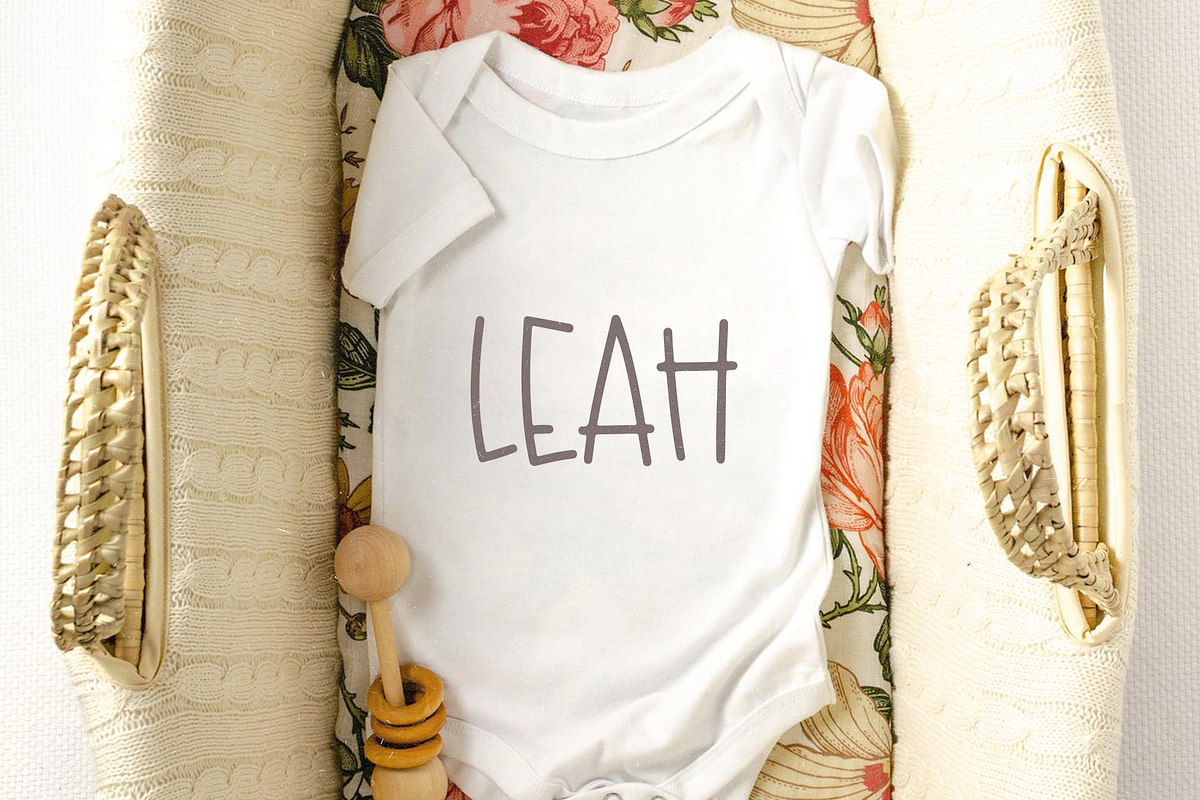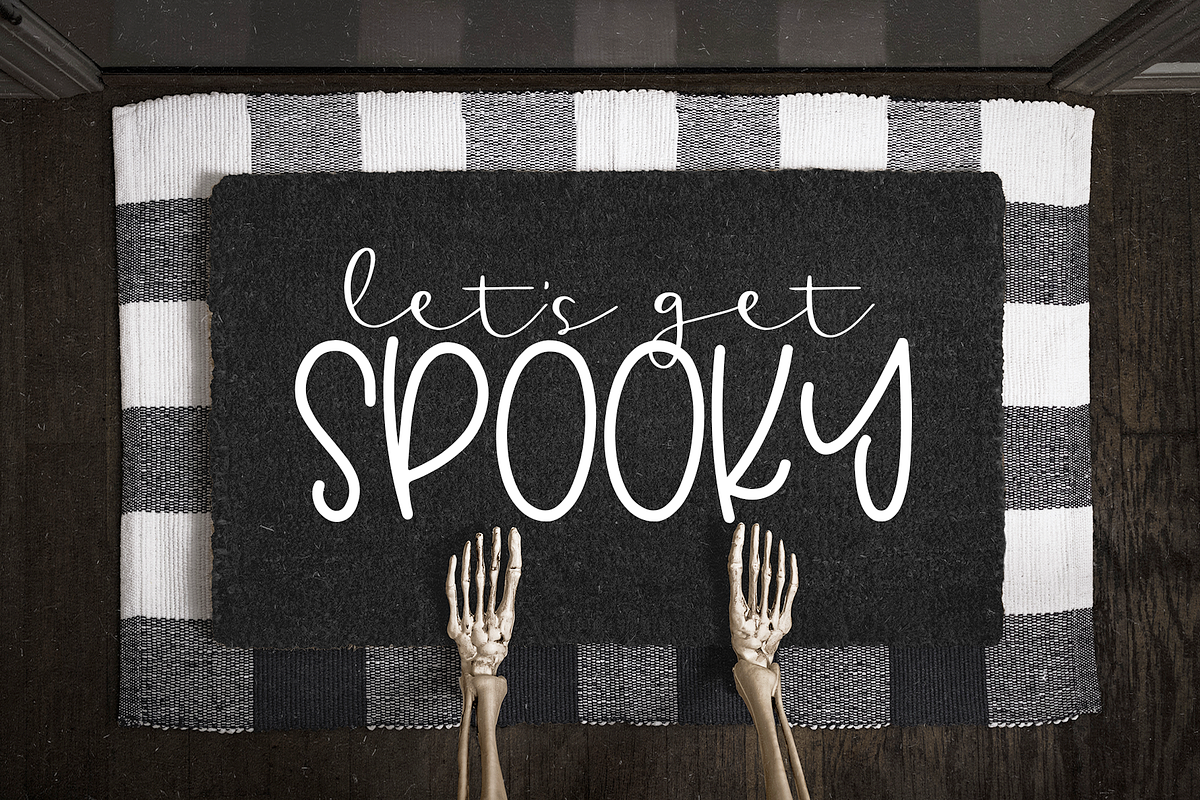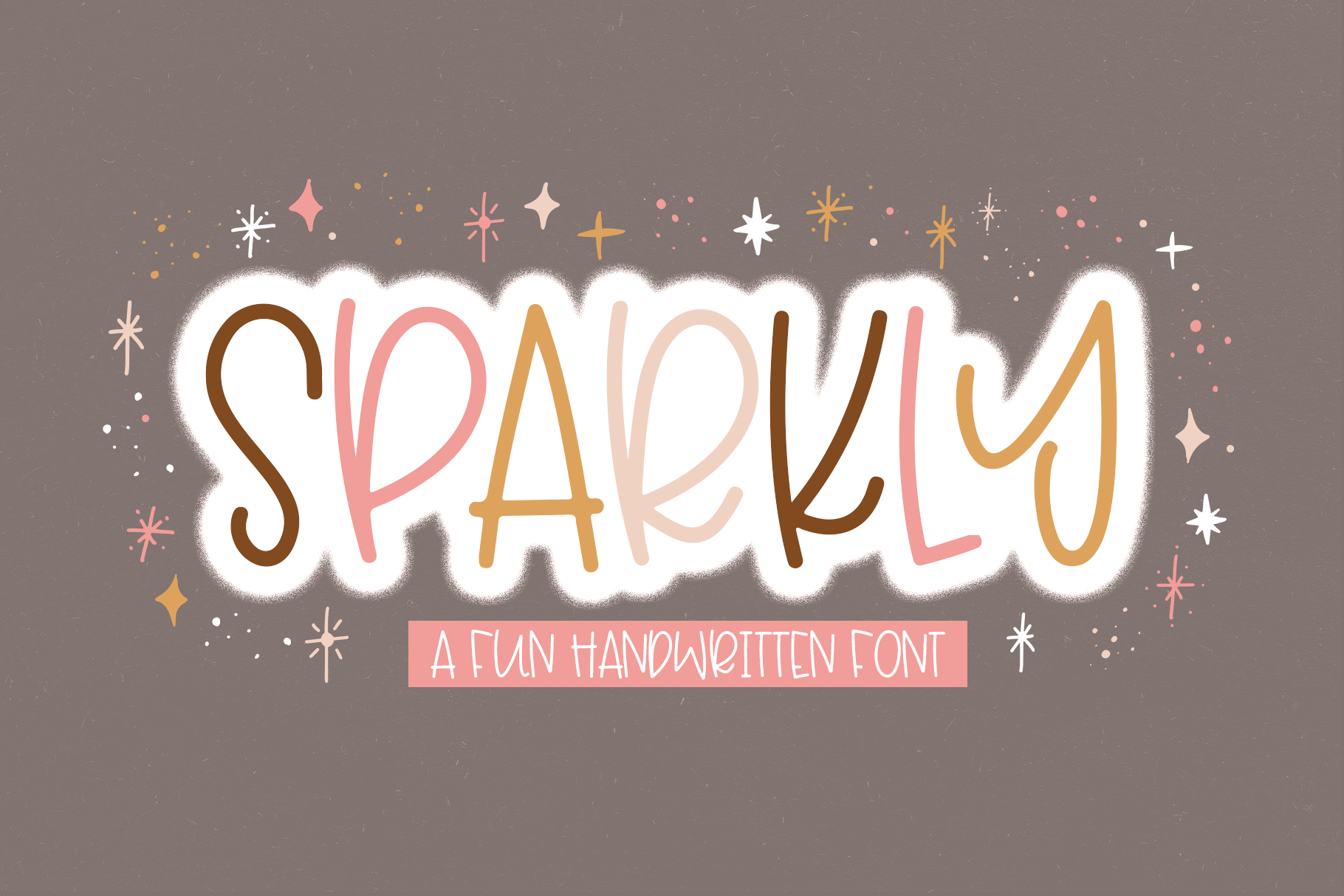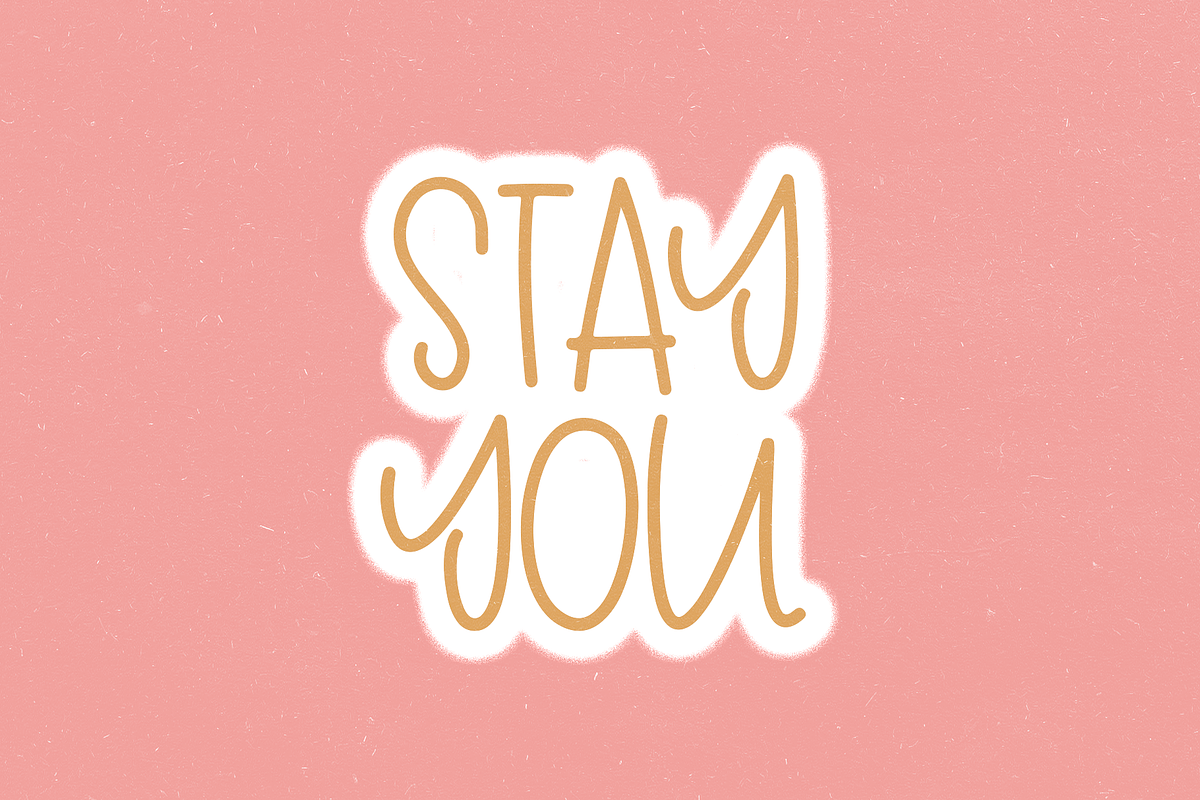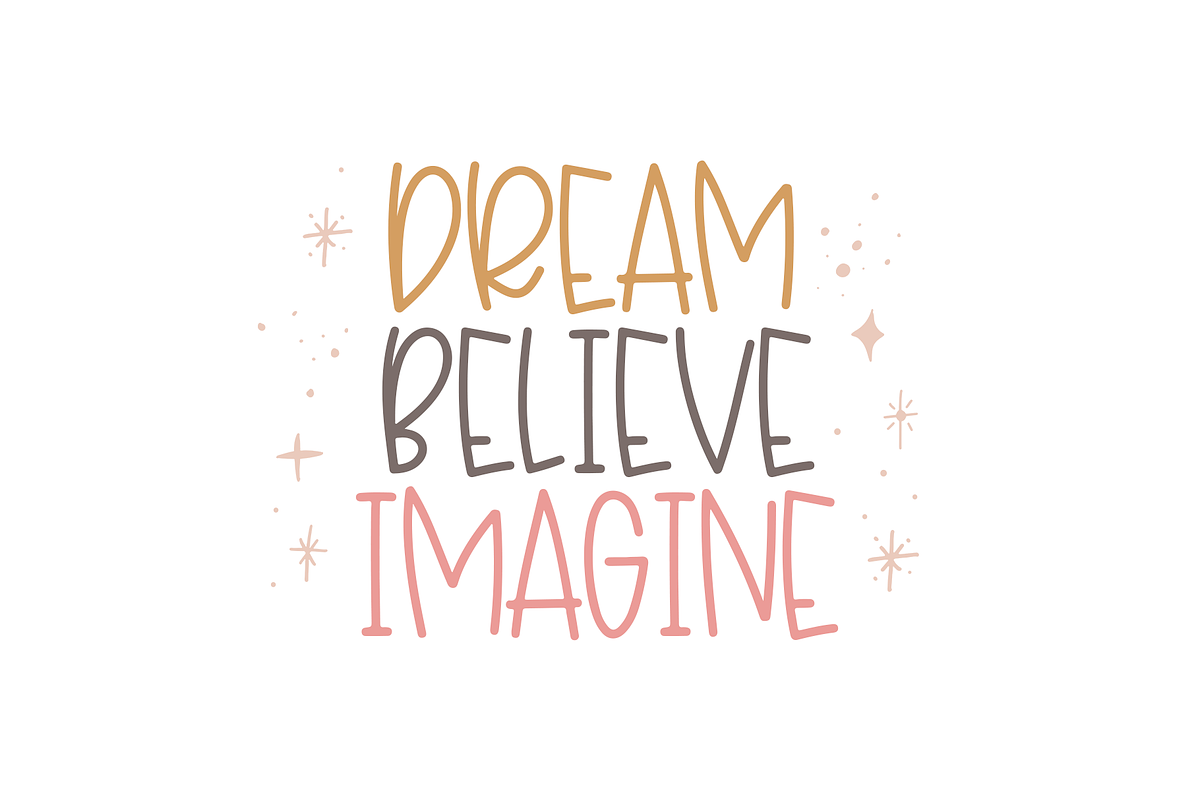
Sparkly | Fun Handwritten Font
Sparkly is a fun handwritten - all caps font.
Sparkly is perfect for shirt designs, svg designs, cricut projects, posters, branding, logos, invitations, planner prints, and more!